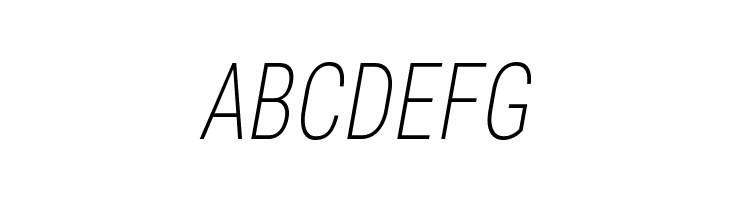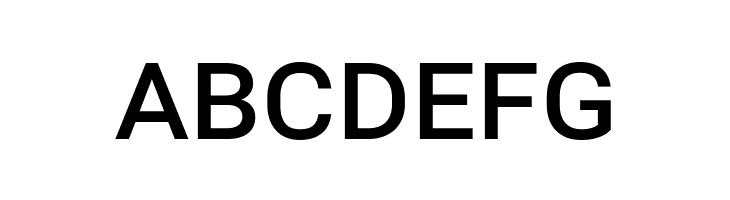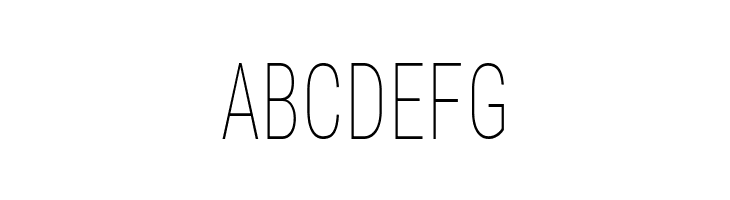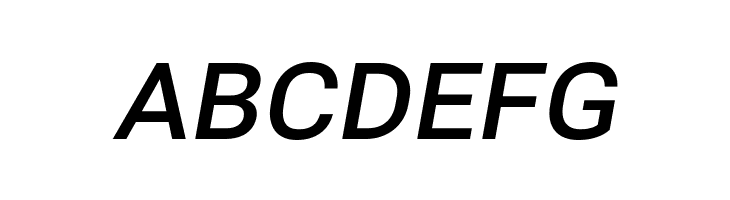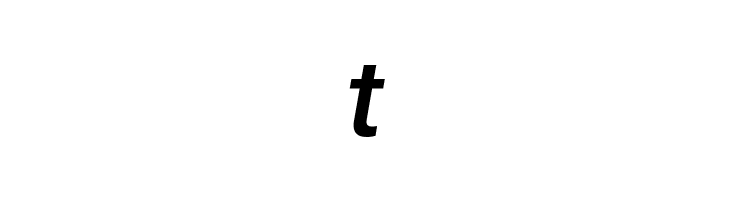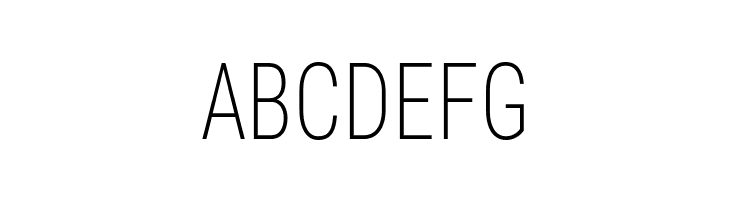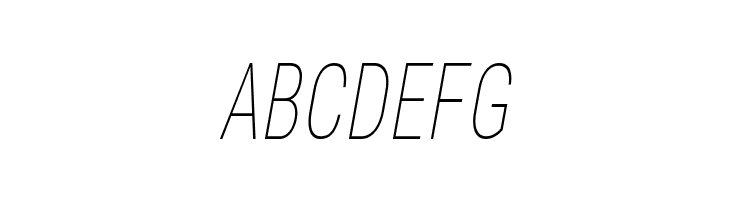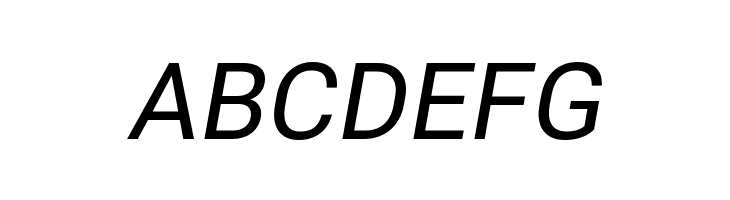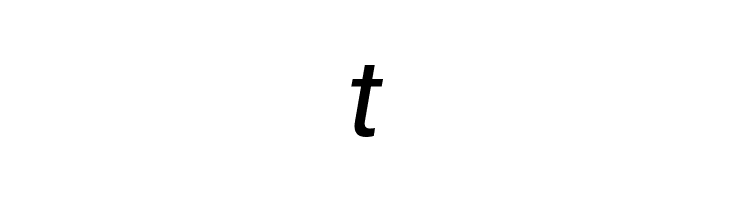
A modern italic font with clean lines and a slightly condensed form.
A modern italic font with clean lines and smooth curves.
A clean, modern sans-serif font with uniform strokes and a slightly condensed style.
A modern sans-serif font with clean, legible letterforms and consistent stroke width.
A bold, modern sans-serif font with clean lines and uniform stroke width.